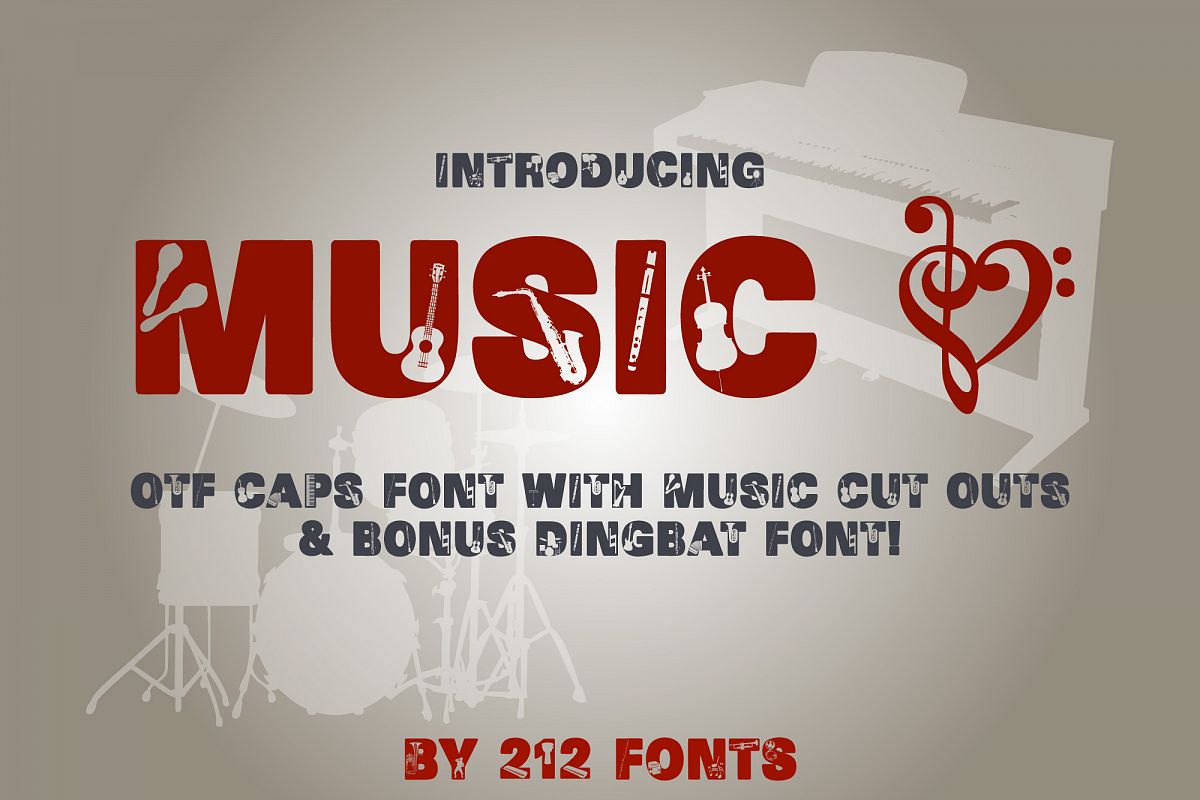
212 Music Caps Display Font Instruments Notes Alphabet OTF
212 Music is a fun, installable caps font featuring 200+ glyphs made up of all letters with Musical Instruments and Notes punched out! Bonus Music Dingbat font included with over 100 glyphs of instruments and notes.
This font makes great graphics, tshirt art, decals, monogram art, you name it!